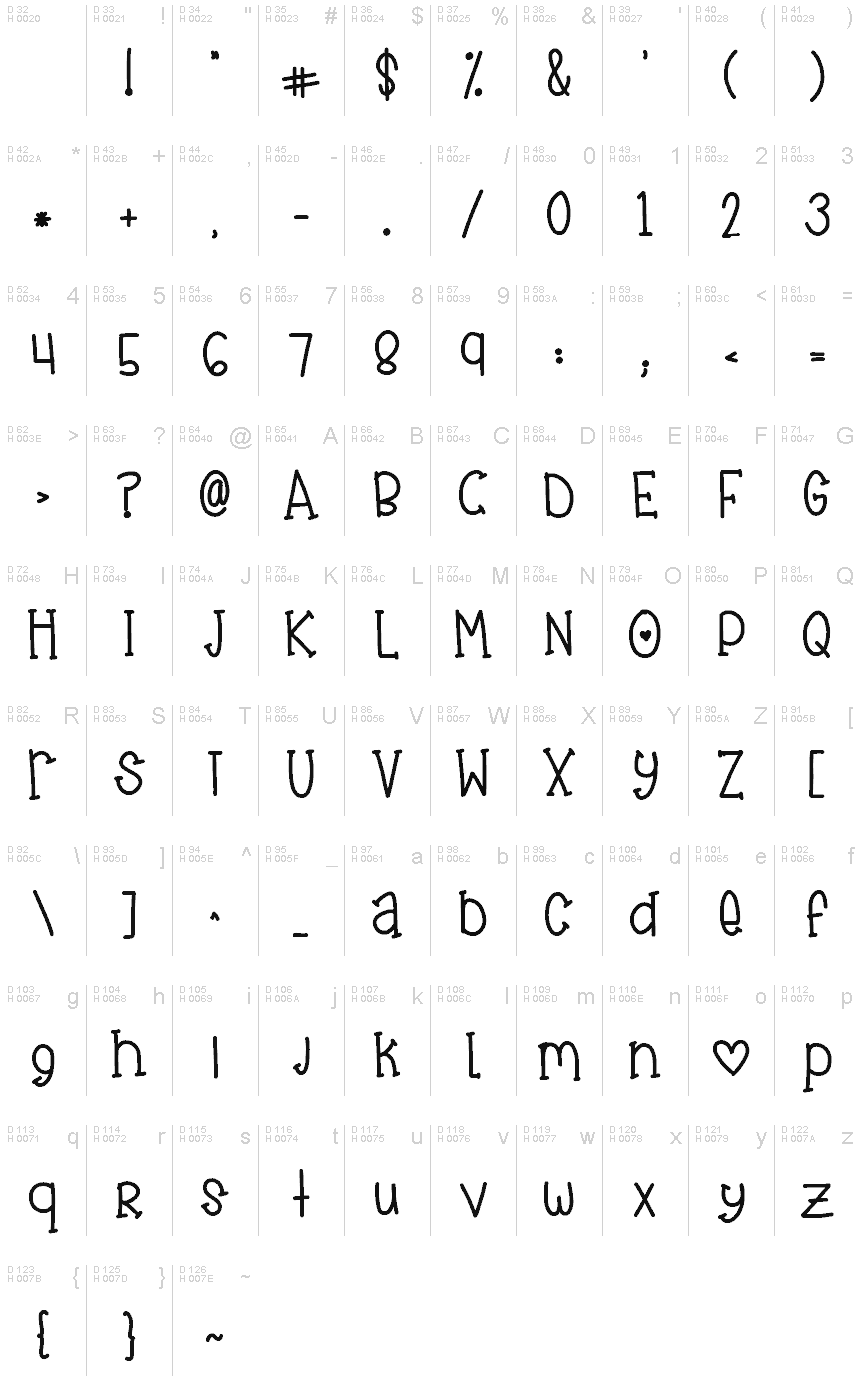
Cuddles is a free handwritten font with tall, narrow, loosely drawn letters set on a gently uneven line and a cheerful, homemade air. Rounded ends and curling arms give the alphabet a felt-tip bounce.
Affection, friendship, and playful celebration are the natural subjects here, making it useful for greeting cards, party invitations, and children's book covers. It can also shape small craft packaging and classroom posters with the informal look of lettering drawn directly onto paper. The repeated hooks and softly rounded tips echo simple doodles and looping borders, linking the type closely with cheerful party illustrations and hand-drawn decoration.